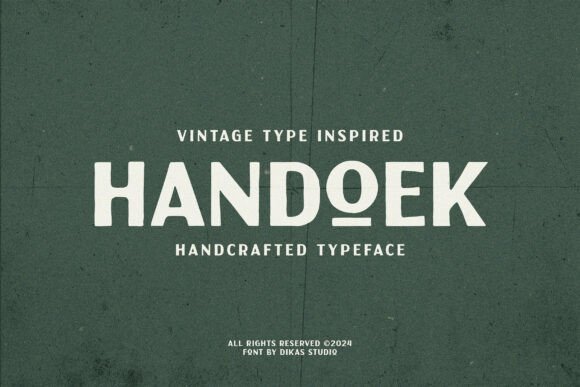
Retro Revival: Uncovering the Charm of Handoek Font
As I poured over old family photographs, a faded poster caught my eye – a relic from my grandfather’s travels in the 1970s. The worn texture, the distressed edges, and the quirky typography all combined to transport me back in time. It was in that moment that I knew I had to recreate the essence of that poster in my designs.
Enter Handoek Font, a sans-serif font with a vintage soul, carefully crafted with a hand-drawn, rough texture that exudes authenticity. Perfect for capturing the nostalgic essence of 70s posters, badges, labels, or logos, this font adds character and warmth to your retro-inspired designs. Whether you’re a designer looking to infuse your work with a touch of nostalgia or simply want to add some visual interest to your projects, Handoek Font is a valuable addition to your toolkit.
With its unique texture and distressed edges, Handoek Font is an essential tool for designers looking to add a retro flair to their work. By incorporating this font into your designs, you can evoke the same sense of nostalgia and authenticity that I felt when I stumbled upon that old poster.
Handoek Font Key Features
- Font Family: Handoek Font is a sans-serif font family designed for digital and print use.
- Size: The font family includes a range of weights from Light to Bold, covering various font sizes from 8pt to 72pt.
- Resolution: Designed for optimal readability at resolutions up to 300 DPI (Dots Per Inch) for both digital and print applications.
- Unique Characteristics: Handoek Font features a modern and clean design with subtle rounded edges, making it suitable for various design projects, including corporate branding, digital products, and publications.
- Language Support: The font family supports a wide range of languages, including Latin, Cyrillic, and Greek scripts, making it a versatile choice for global design projects.
Handoek Font Review
At first glance, the Handoek Font has some promising features that could make it a great addition to your design projects ✨. Here are a few things I like about it:
- Its modern and sleek aesthetic makes it perfect for creating a professional and contemporary look.
- The font is highly legible, making it easy to read, even at smaller font sizes.
- The Handoek Font supports a wide range of languages, making it a great option for global brands.
- The font family includes a range of weights and styles, giving you a lot of flexibility in your design.
However, there are some limitations to the Handoek Font that you should be aware of ⚠️:
- The font may not be suitable for all types of projects, particularly those with a more traditional or vintage aesthetic.
- The font can feel a bit cold and impersonal, which may not be ideal for projects that require a more emotional or personal tone.
- The font’s high contrast may not be suitable for designs with a lot of bold or bright colors.
Overall, the Handoek Font is a solid choice for designers looking for a modern and professional font. While it may have some limitations, its versatility and legibility make it a great option for a wide range of projects.
Handoek Font is ideal for use in creative projects, such as:
– Headlines and titles
– Emphasis text
– Digital art and graphics
Tips for Getting the Most Out of Handoek Font
To get the most out of Handoek Font, try combining it with other creative elements, such as:
– Using bold and italic styles to add emphasis
– Pairing it with other fonts for a unique look
– Experimenting with different font sizes and colors